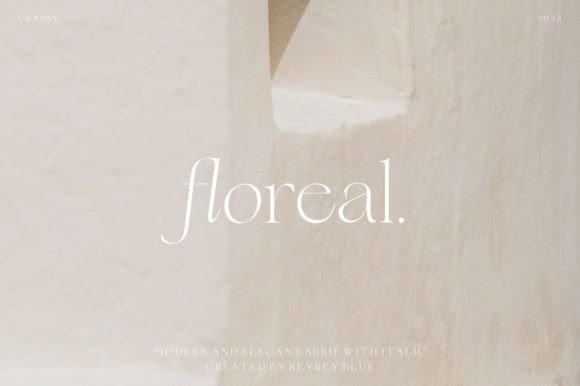
Looking for the perfect font for your wedding invitations, programs, or thank-you cards? Look no further than Floreal Font! Created by the talented designer Reyrey Blue, Floreal is a stunning serif font that will make your special day even more memorable.
This font is the epitome of elegance, with its modern twist and stylish flourishes. It comes complete with alternates and ligatures, allowing you to create a truly unique look for your wedding materials. Plus, Floreal is incredibly versatile and can be used for a wide range of projects, from corporate identities to magazines to product labels.
With Floreal, you can take your wedding stationery to the next level. Your guests will be blown away by the sophistication and class that this font exudes. Not only that, but it will make your wedding materials stand out from the rest and create a lasting impression on your loved ones.